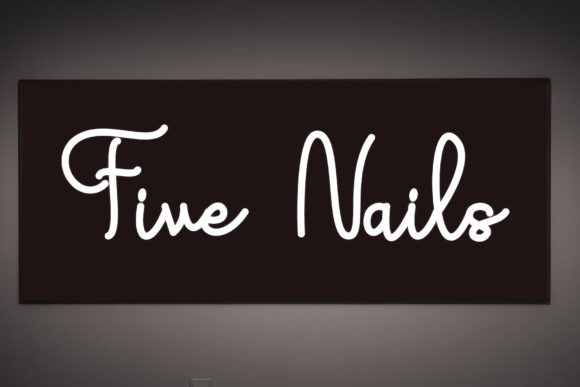
Prepare to be captivated by Five Nails Font, an exquisite script typeface that exudes charm and elegance. Immerse yourself in a world of enchanting lines and graceful curves, where every letter dances with a touch of whimsy and a hint of romance.
Crafted with the utmost care by the skilled hands of Designvector10, Five Nails Font is a treasure that will ignite your creativity. Its delicate strokes and flowing script will transport you to a realm of endless possibilities, where your designs will blossom with a touch of magic.
Whether you're seeking to create breathtaking wedding invitations that will leave a lasting impression or design enchanting cards that convey heartfelt messages, Five Nails Font is your perfect companion. Its versatility extends far beyond weddings, as it seamlessly adapts to any project that craves a touch of romance and sophistication.
Imagine your designs adorned with the enchanting curves of Five Nails Font, where each letter whispers a tale of love and joy. Its delicate presence will lend an air of elegance to your branding, making your creations stand out from the crowd.
Don't settle for ordinary fonts that fail to stir the soul. Embrace the allure of Five Nails Font and unlock a world of creative possibilities. Let your designs bloom with a touch of enchantment and captivate your audience with every stroke.